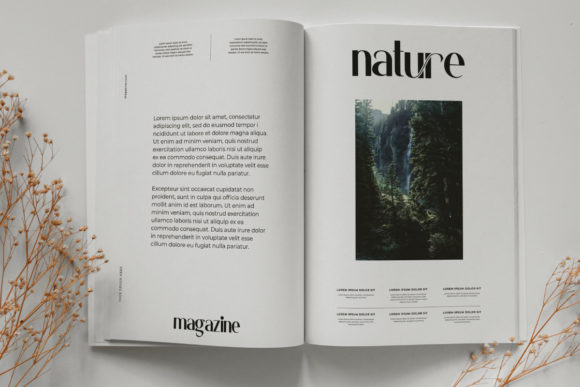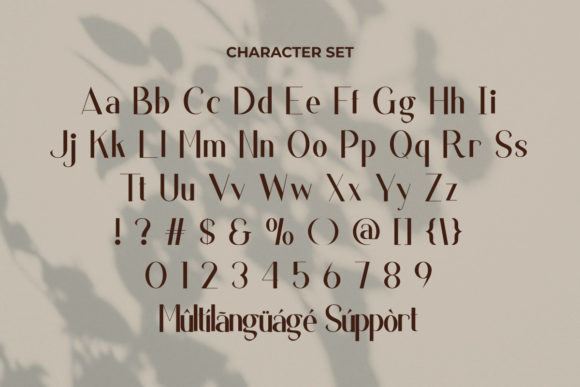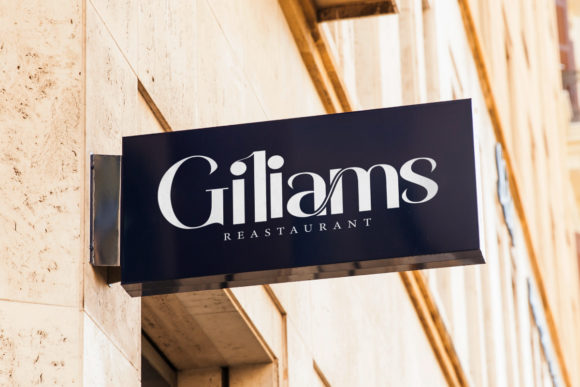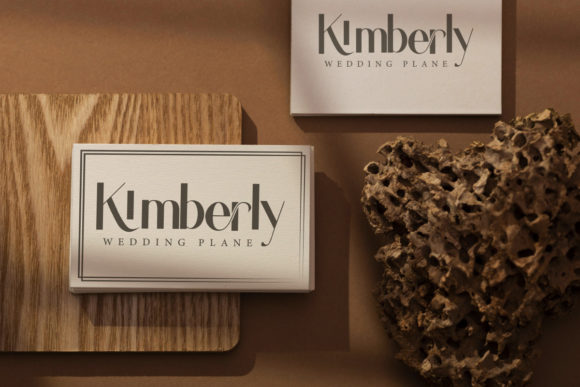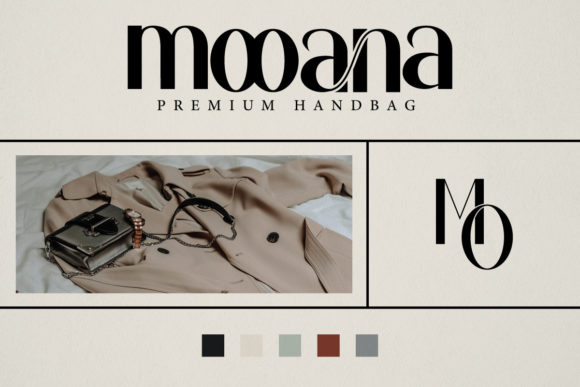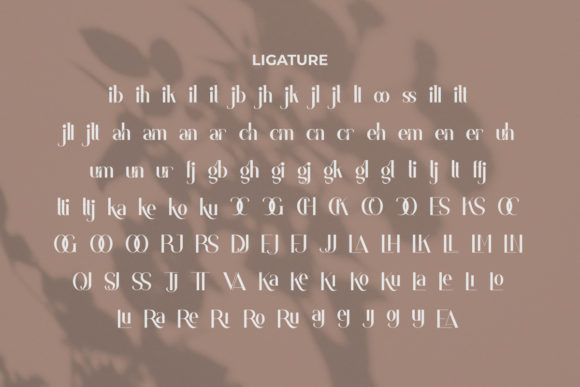
Introducing Coatesville Font: Elevate Your Designs with Elegance and Sophistication
In the world of typography, fonts play a crucial role in conveying the tone and aesthetic of a design. For designers and crafters seeking a font that exudes elegance and modernity, Coatesville Font is an excellent choice. This stunning sans serif font boasts a clean and simple form that deviates from the usual basic shapes, making it a classy and contemporary addition to any project.
What Sets Coatesville Font Apart?
Coatesville Font’s unique charm lies in its distinctive design elements. Unlike traditional sans serif fonts, Coatesville features a refined and sophisticated style that adds a touch of luxury to any design. Its clean lines, subtle curves, and precision-crafted glyphs make it an ideal choice for projects that demand a high level of elegance.
PUA Encoding: Unlocking Endless Creative Possibilities
One of the standout features of Coatesville Font is its PUA (Private Use Area) encoding. This means that designers and crafters can access a wide range of glyphs and swashes with ease, allowing for endless creative possibilities. With PUA encoding, you can effortlessly navigate the font’s extensive character set, including alternative letters, ligatures, and decorative elements.
Coatesville Font’s versatility makes it suitable for a wide range of design projects, from:
- Logos and branding materials: Create a lasting impression with Coatesville’s elegant and sophisticated style.
- Packaging and product design: Add a touch of luxury to your product packaging with this stunning font.
- Signage and display graphics: Make a statement with Coatesville’s clean and modern aesthetic.
- Digital media and advertising: Elevate your online campaigns with this refined and classy font.
- Crafting and DIY projects: Add a professional touch to your handmade creations with Coatesville’s elegant typography.
Why Choose Coatesville Font?
With so many fonts available, why choose Coatesville? Here are just a few reasons why designers and crafters love this elegant sans serif font:
- Unique and distinctive design: Stand out from the crowd with Coatesville’s refined and sophisticated style.
- High level of legibility: Coatesville’s clean lines and simple form ensure that your text is easy to read.
- PUA encoding: Unlock endless creative possibilities with access to a wide range of glyphs and swashes.
- Classy and modern aesthetic: Elevate your designs with Coatesville’s elegant and contemporary style.
Tips for Using Coatesville Font
To get the most out of Coatesville Font, here are a few tips:
- Experiment with different font sizes: Coatesville looks stunning in both large and small font sizes.
- Pair with complementary fonts: Combine Coatesville with other fonts to create a unique and visually appealing typography.
- Take advantage of PUA encoding: Explore the font’s extensive character set to add a personal touch to your designs.
Coatesville Font is a stunning sans serif font that offers a unique blend of elegance and modernity. With its clean and simple form, PUA encoding, and classy aesthetic, it’s the perfect choice for designers and crafters seeking to elevate their designs. Whether you’re working on a logo, packaging, or digital media project, Coatesville Font is sure to make a lasting impression.